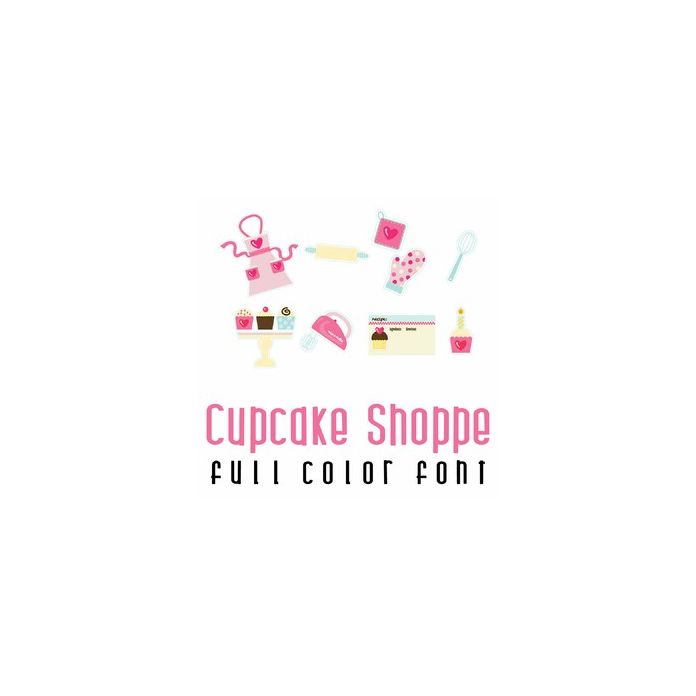
This adorable full-color doodlebat font features beautiful cupcakes and all things to bake them with. Perfect for cards, crafts, gifts, decor, scrapbook pages, planner stickers, and more!